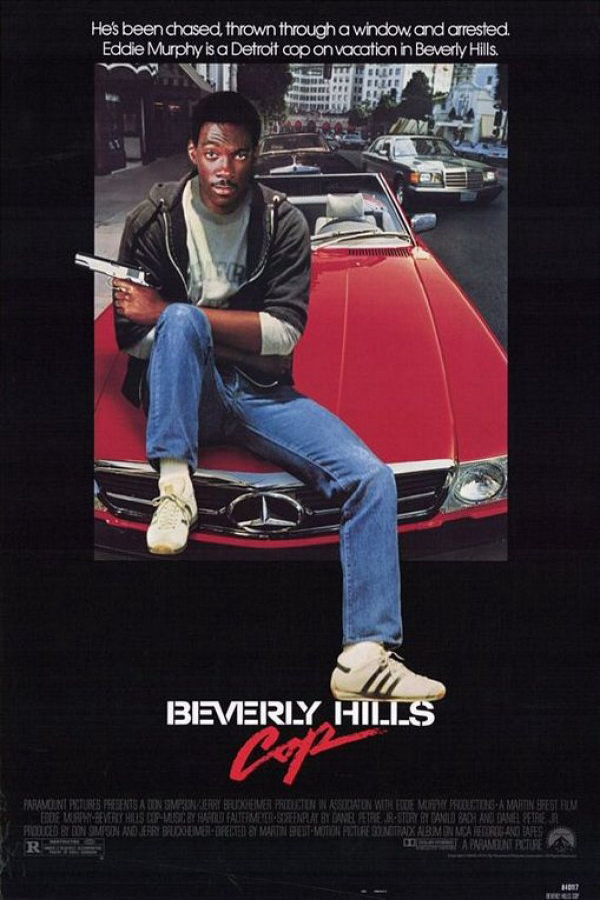
Beverly Hills Cop Font
ActionBeverly Hills Cop is a 1984 action comedy film starring Eddie Murphy as Detroit police detective Axel Foley, who travels to Beverly Hills to investigate his best friend's murder.